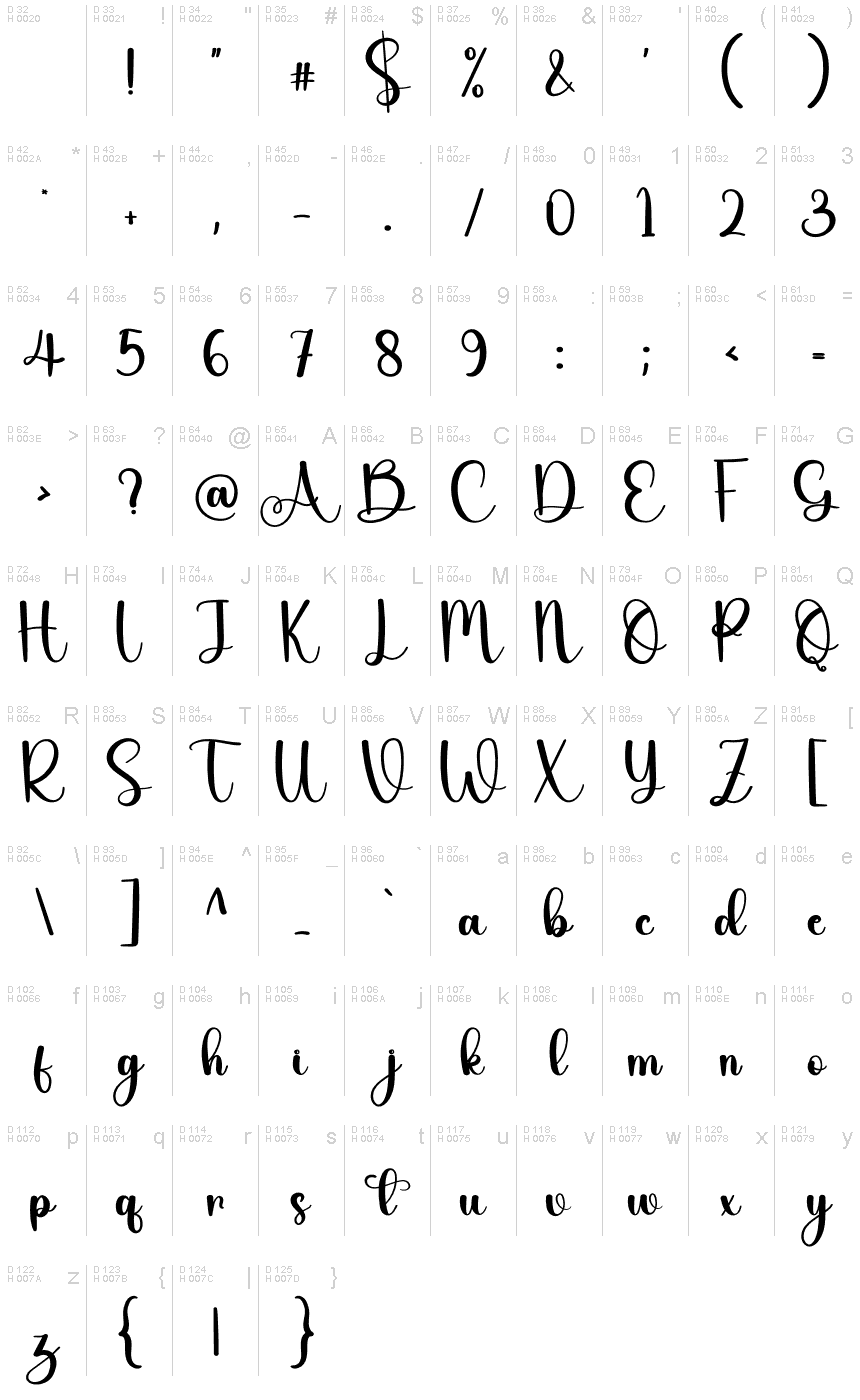
Diamond
Diamond, a stunning calligraphy font masterfully crafted by Harlek Studio, exudes elegance and grace.
Its intricate strokes and graceful curves create a sense of sophistication, making it perfect for wedding invitations, luxury branding, and high-end fashion editorials. With its versatile range of weights and styles, from delicate thin to bold black, Diamond adds a touch of refinement to any project. Whether you're designing elegant logos or crafting visually captivating packaging, this enchanting calligraphy font is sure to make your creations shine bright like a diamond.